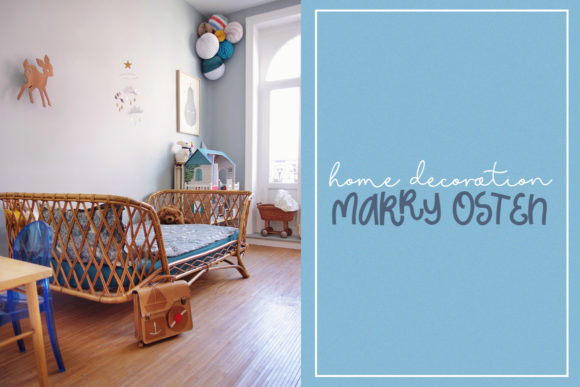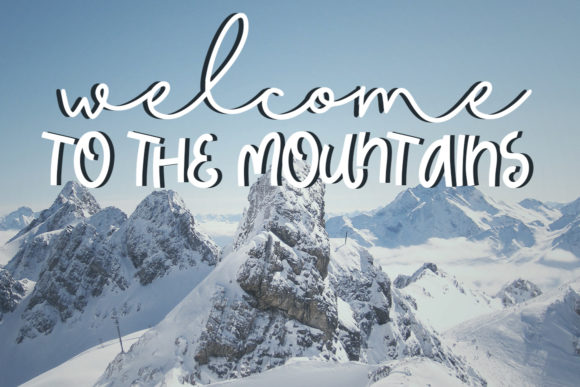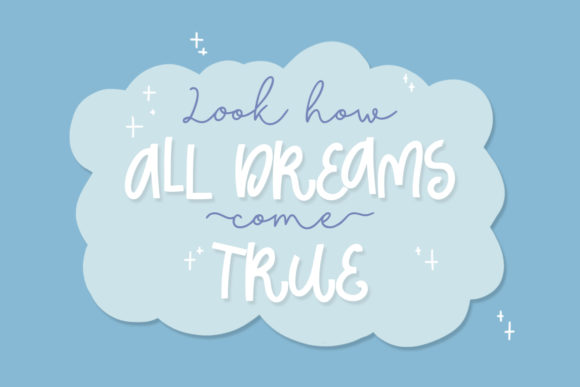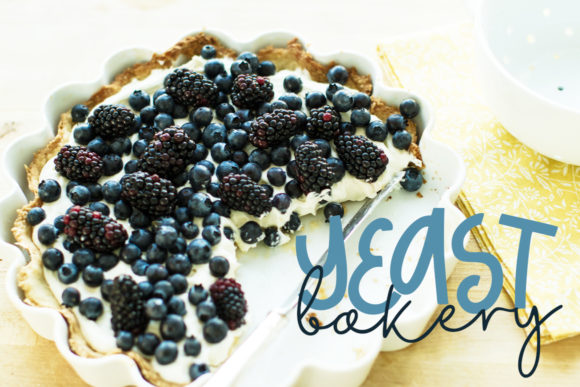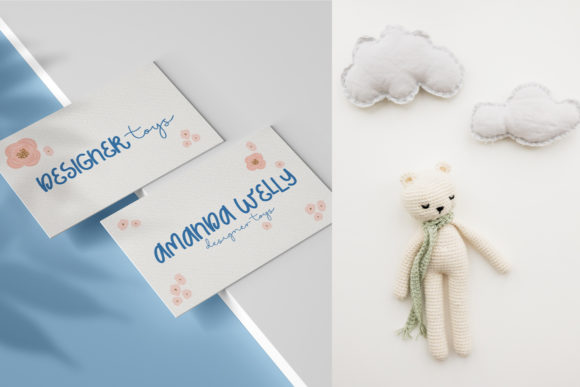
About Curly Dolly Font
Curly Dolly is a cute and funny duo font (handwritten and display). It will elevate a wide range of design projects to the highest level, be it branding, headings, wedding designs, signatures, logos, labels, and much more!